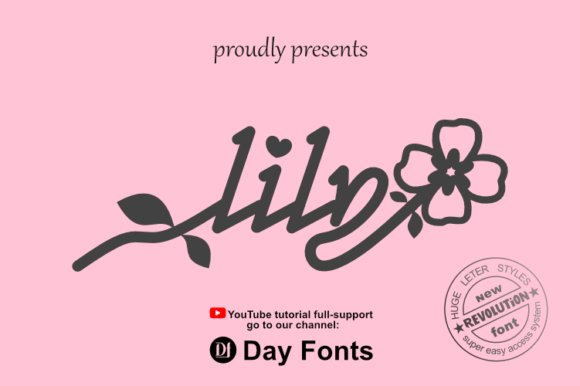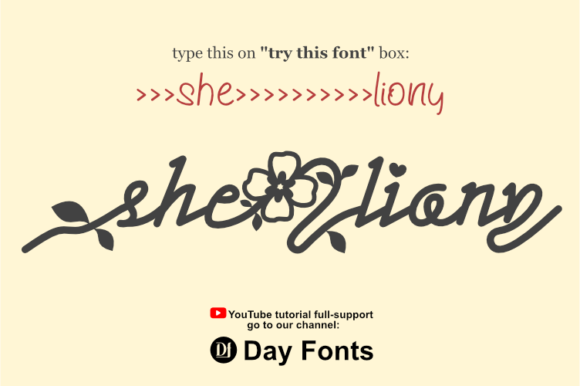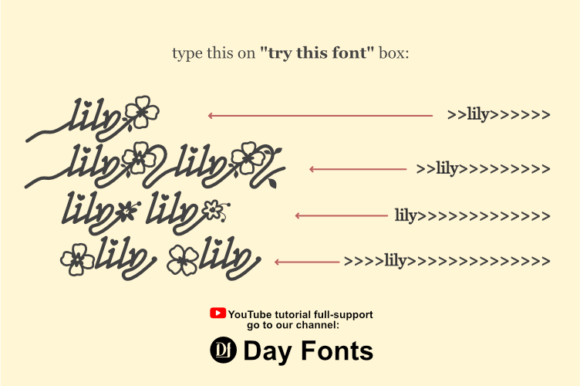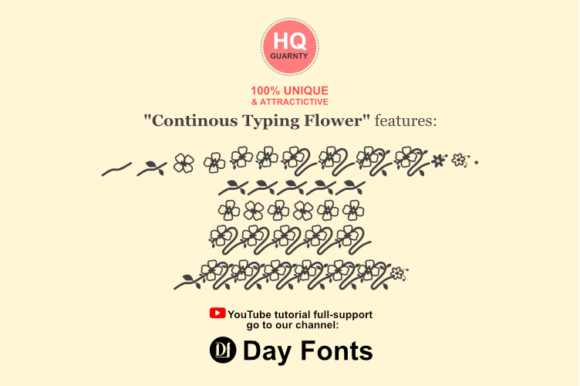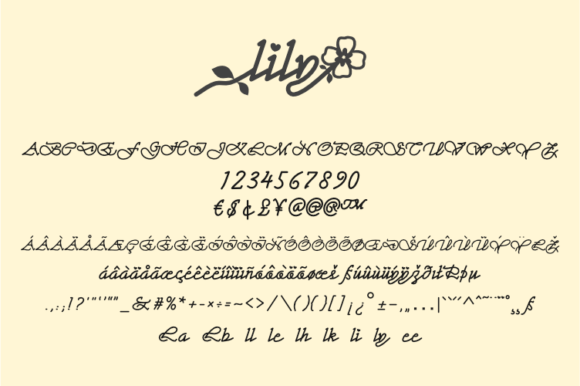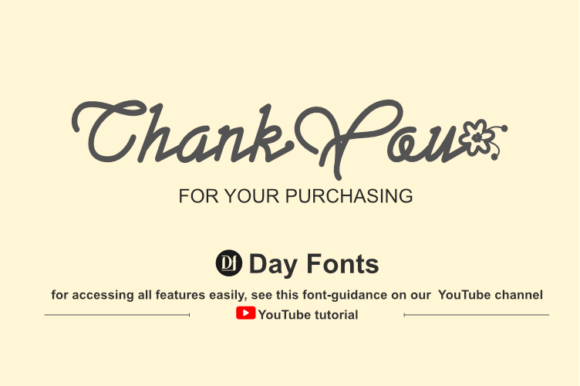
Lily Font
About Lily Font
Lily is a dainty and sweet script font. Highly detailed and unique, this font will look fabulous on a variety of design ideas.
Fall for its ravishing style and use it to create gorgeous designs.